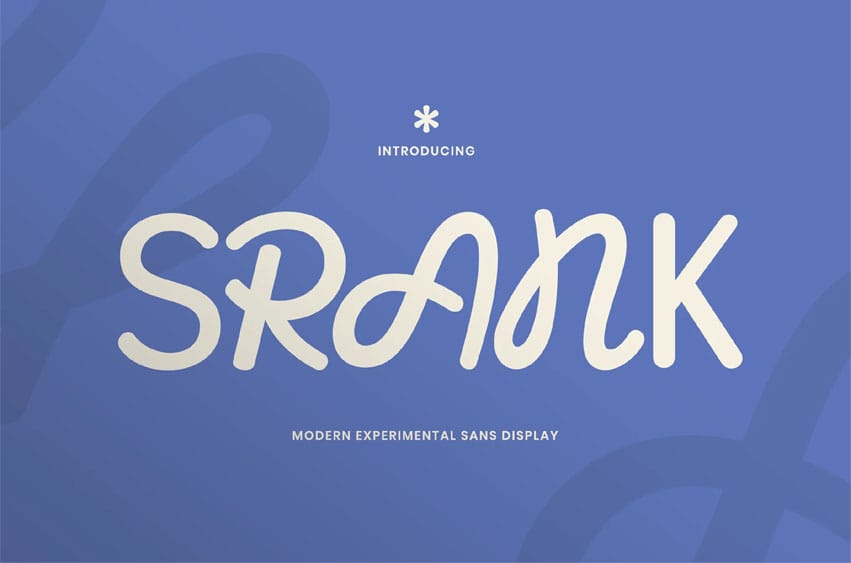
Srank Font is a modern experimental sans display font designed to stand out with a playful yet contemporary personality. Its smooth curves, bold strokes, and unique letterforms create a fresh visual rhythm that feels expressive without losing clarity.
Srank brings a creative and friendly tone, making any design look more dynamic and eye-catching.